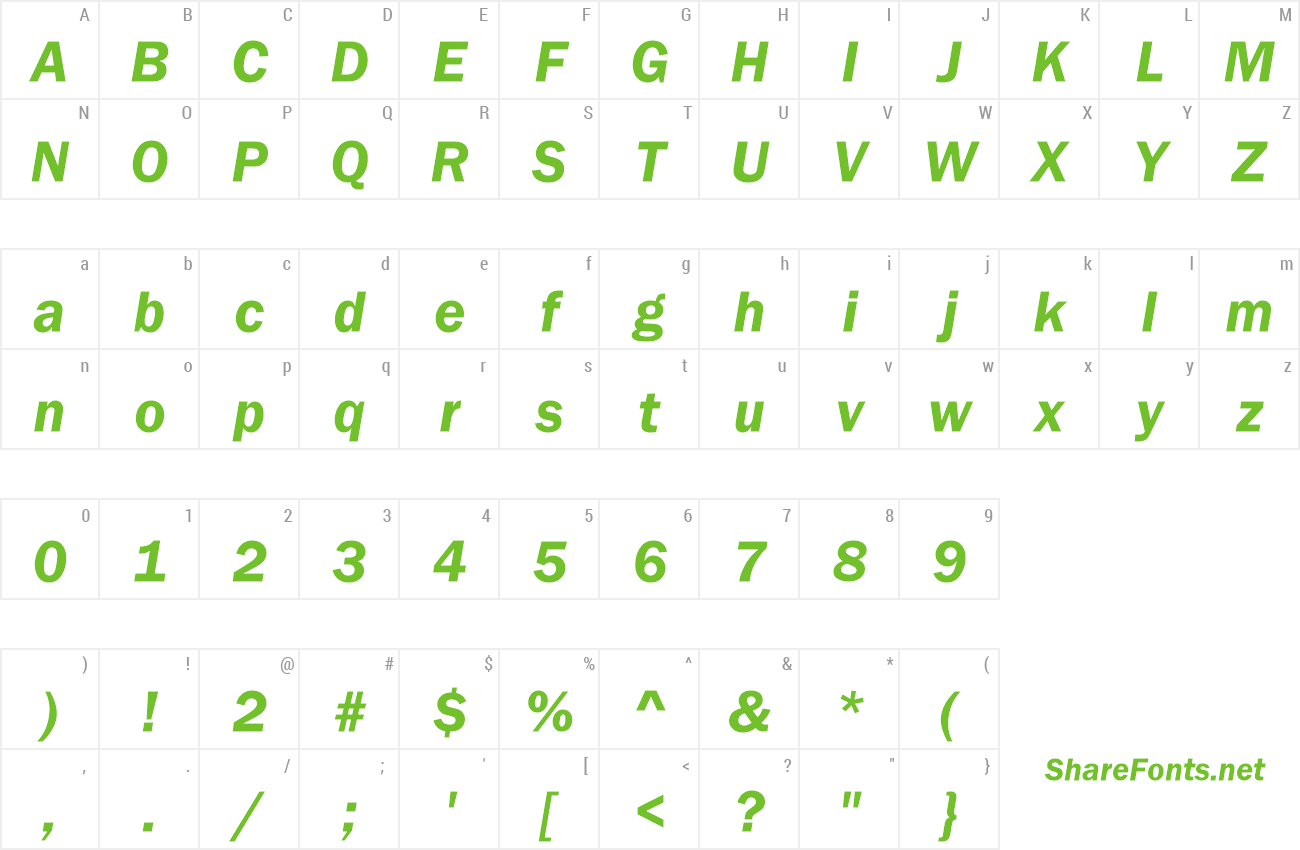
Franklin Gothic Demi Font
Franklin Gothic Demi Font - Atf franklin gothic is a sans serif typeface with 18 styles, available from adobe fonts for sync and web use. It is part of the american type.
Atf franklin gothic is a sans serif typeface with 18 styles, available from adobe fonts for sync and web use. It is part of the american type.
It is part of the american type. Atf franklin gothic is a sans serif typeface with 18 styles, available from adobe fonts for sync and web use.
Franklin Gothic Demi font
Atf franklin gothic is a sans serif typeface with 18 styles, available from adobe fonts for sync and web use. It is part of the american type.
Font Alphabet Styles Franklin Gothic Demi
It is part of the american type. Atf franklin gothic is a sans serif typeface with 18 styles, available from adobe fonts for sync and web use.
Atf franklin gothic is a sans serif typeface with 18 styles, available from adobe fonts for sync and web use. It is part of the american type.
It is part of the american type. Atf franklin gothic is a sans serif typeface with 18 styles, available from adobe fonts for sync and web use.
It Is Part Of The American Type.
Atf franklin gothic is a sans serif typeface with 18 styles, available from adobe fonts for sync and web use.